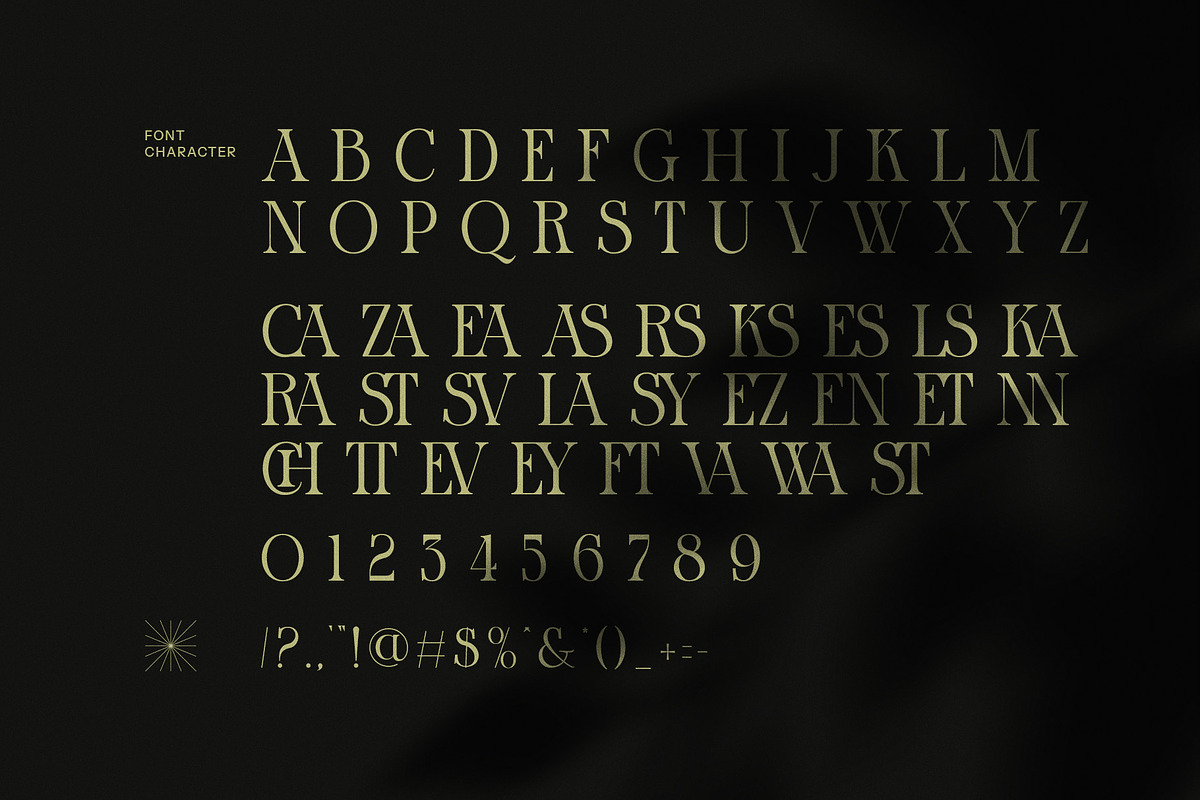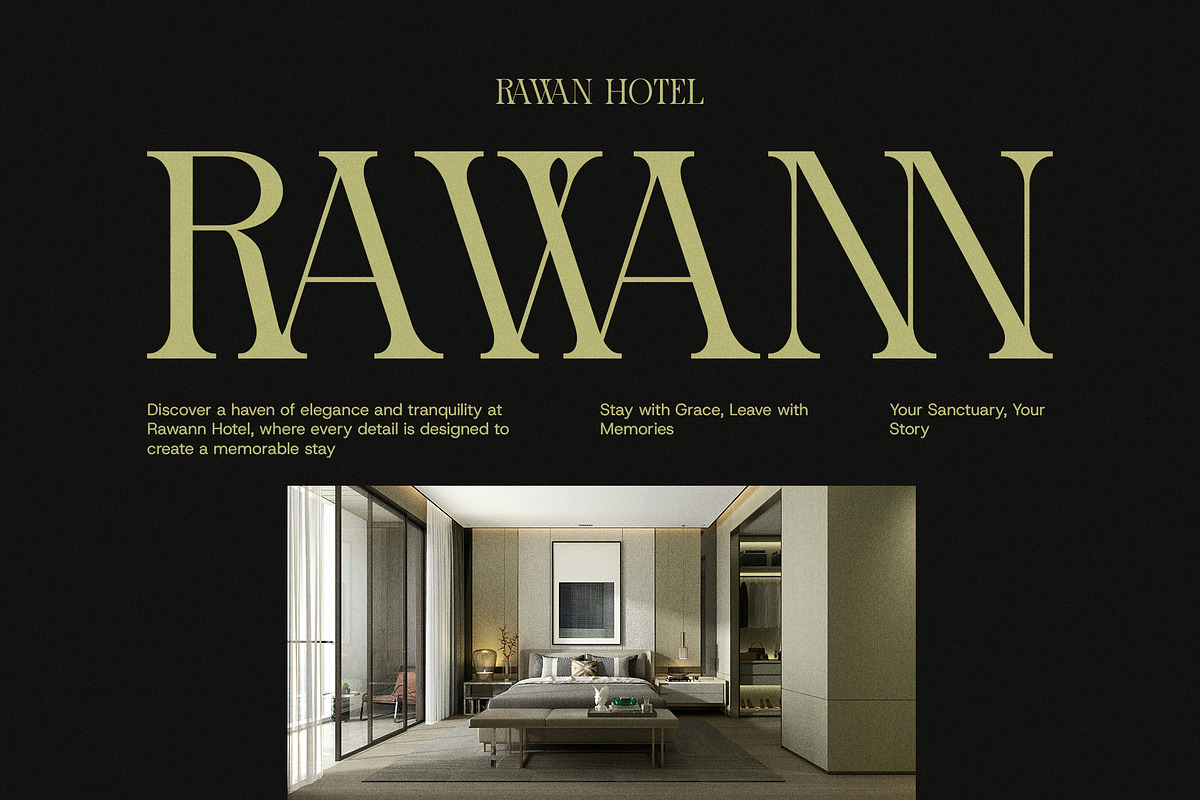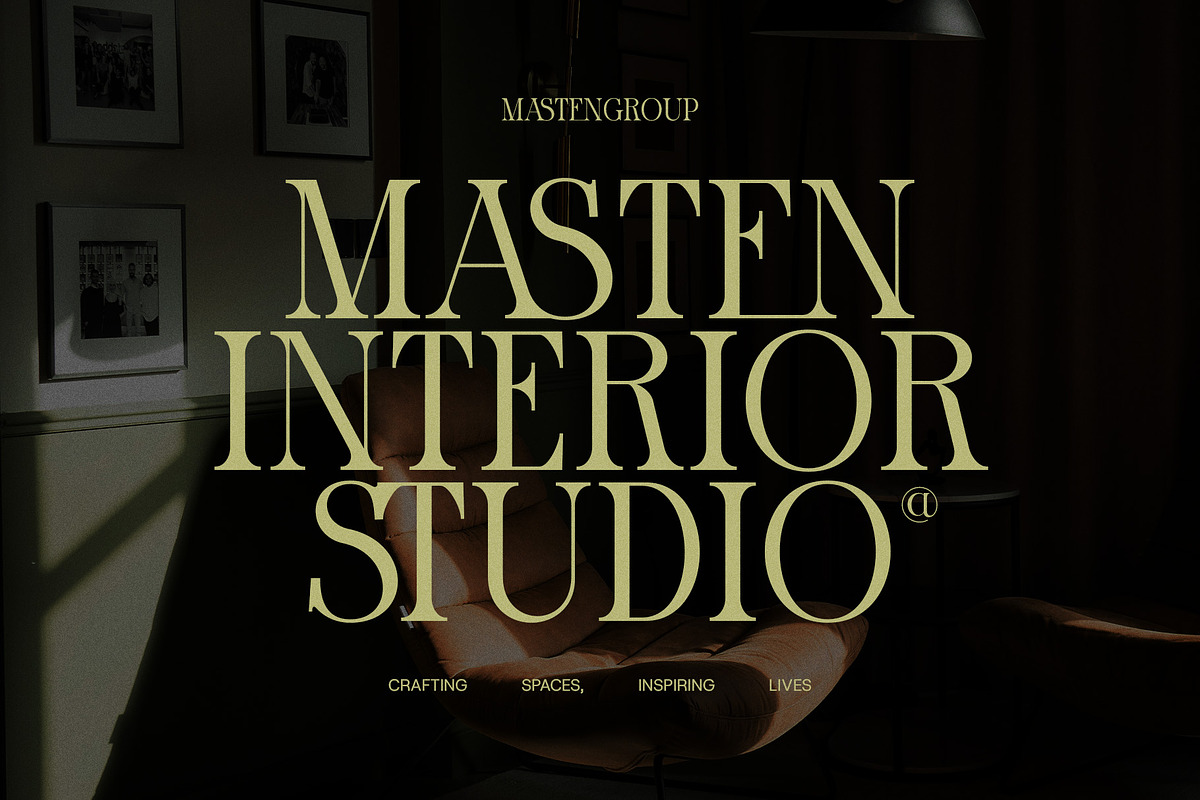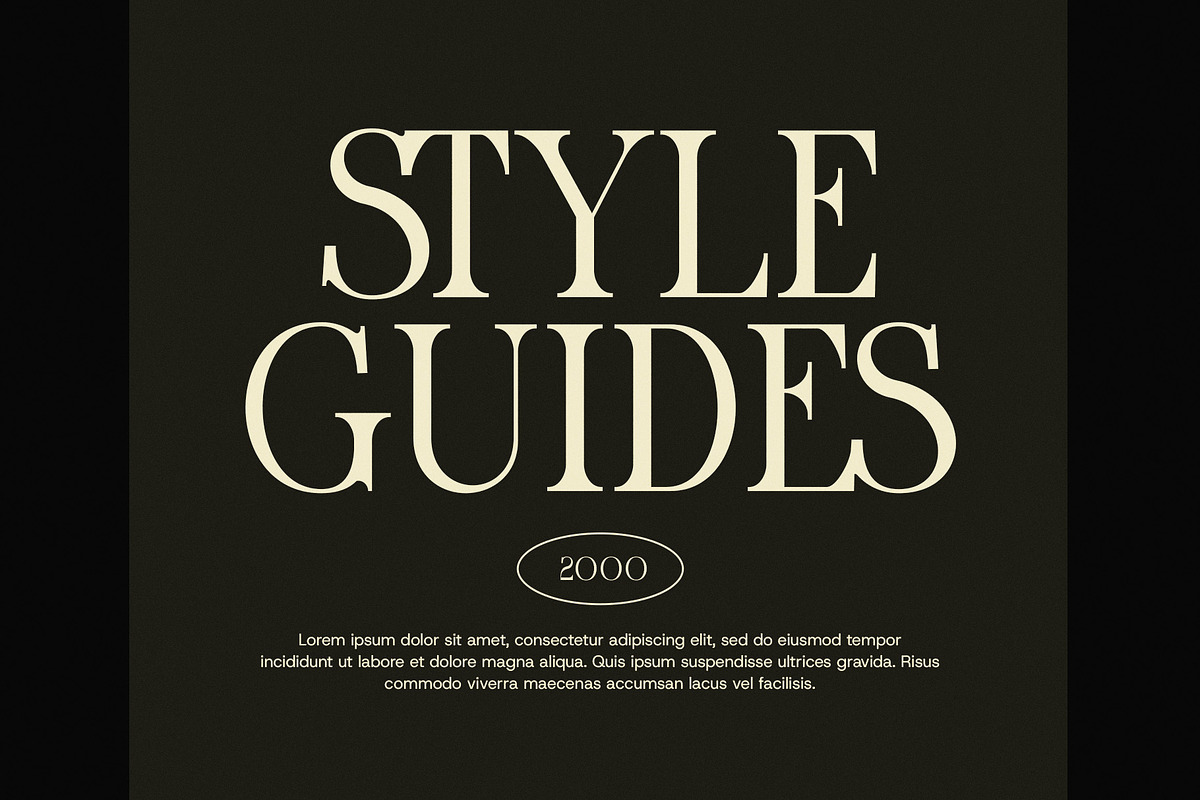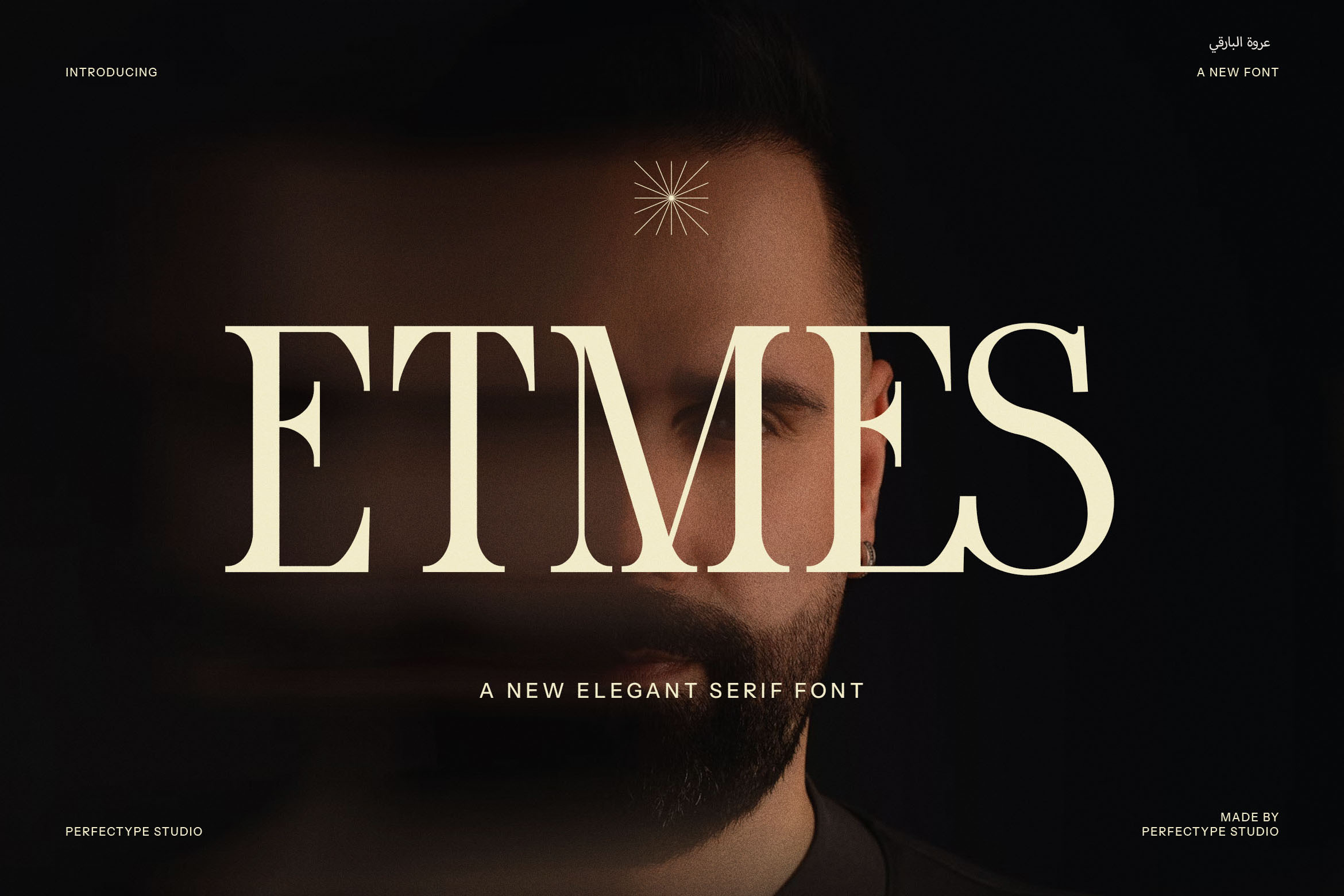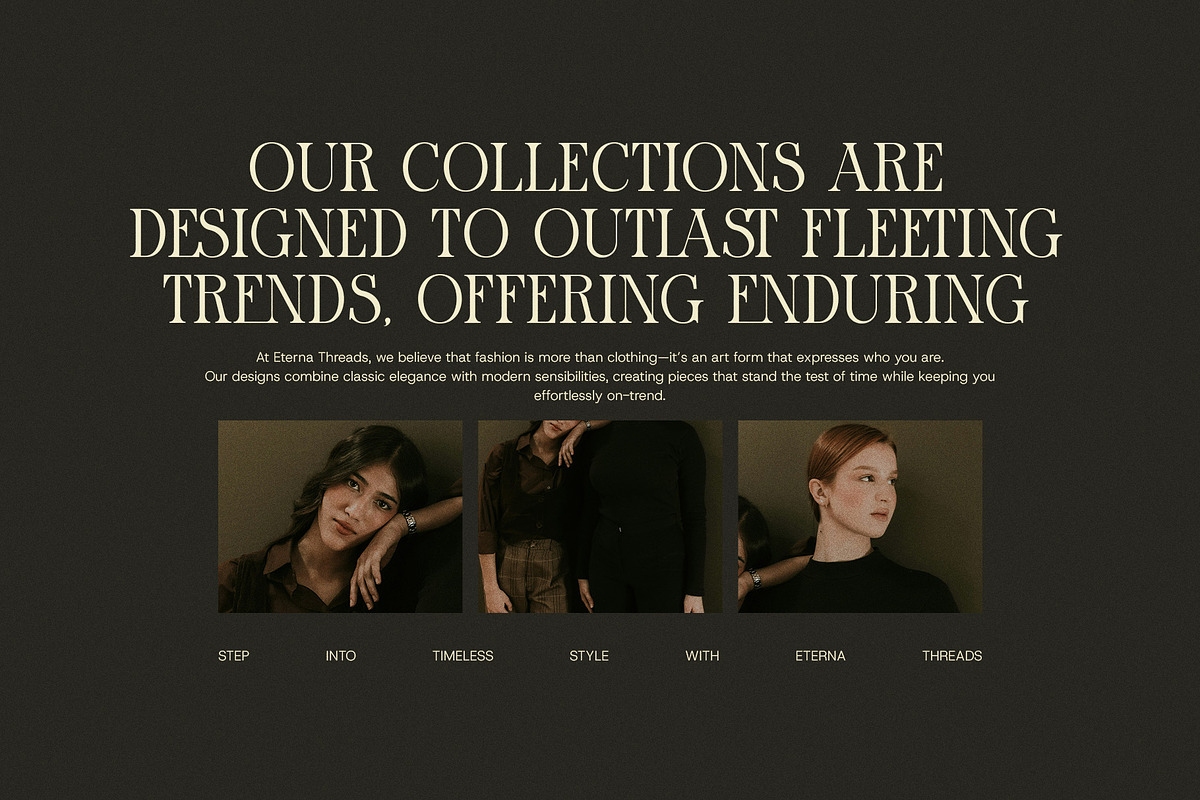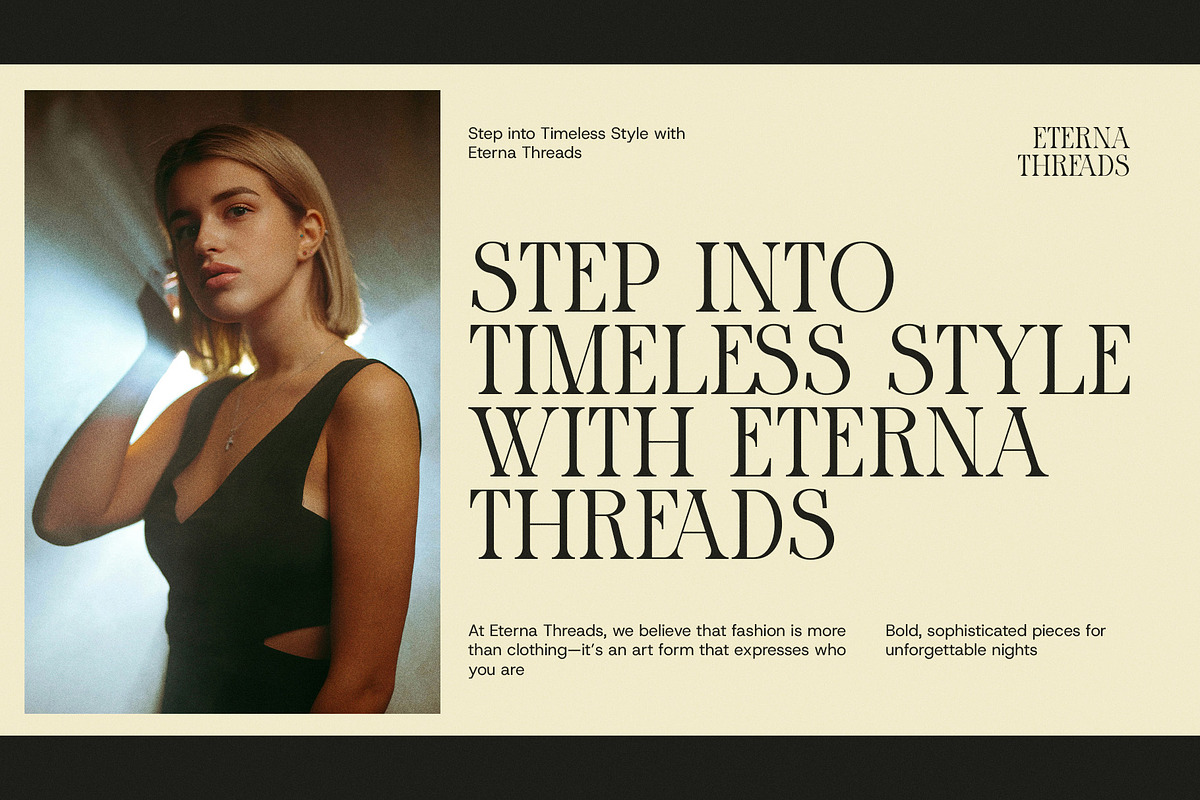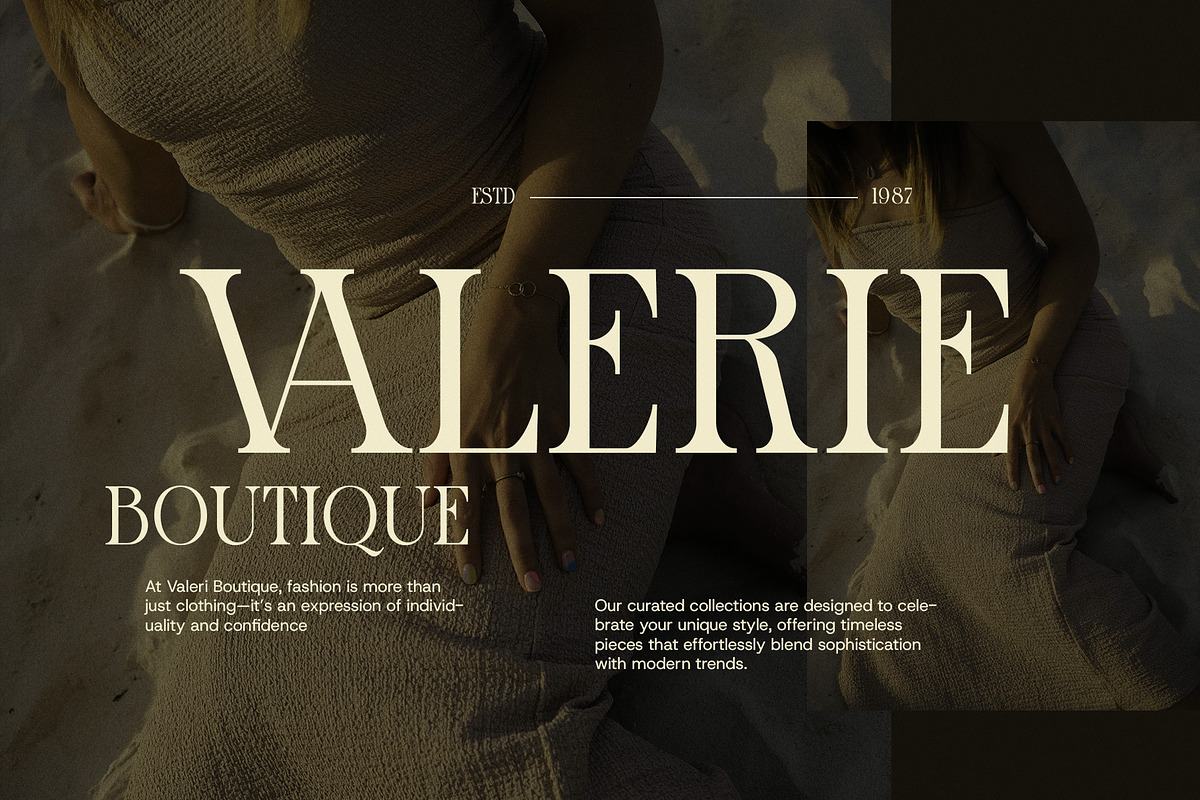
Etmes Modern Serif Font
Etmes Modern Serif Font is a striking and contemporary typeface that effortlessly combines elegance with modern design sensibilities. With its refined serifs and unique letterforms, Etmes stands out for its ability to add a sophisticated touch to any project while maintaining a clean and contemporary feel. Its sleek design makes it a versatile choice for a wide range of applications, from branding and logos to websites, product packaging, and advertising.
Perfect for high-end projects, Etmes brings an air of luxury and professionalism to your designs. Whether you’re creating a bold logo, crafting a premium brand identity, or designing elegant layouts for magazines and websites, this font elevates the overall aesthetic with its graceful curves and modern lines. Its striking appearance makes it a natural fit for upscale boutiques, fine dining establishments, and other luxury brands.
Etmes is designed to perform across both print and digital media, ensuring its effectiveness on websites, magazines, advertisements, and product labels. The font’s modern serif style ensures that it remains legible and sophisticated, making it perfect for everything from editorial headlines to body text. Its adaptability makes it an ideal choice for industries like fashion, food, lifestyle, and premium products.
With Etmes Modern Serif Font, you can infuse your designs with a sense of modern luxury and timeless elegance. Whether you're working on logos, branding, or high-end advertisements, Etmes ensures your project stands out with a refined, professional appearance that speaks to both style and quality.